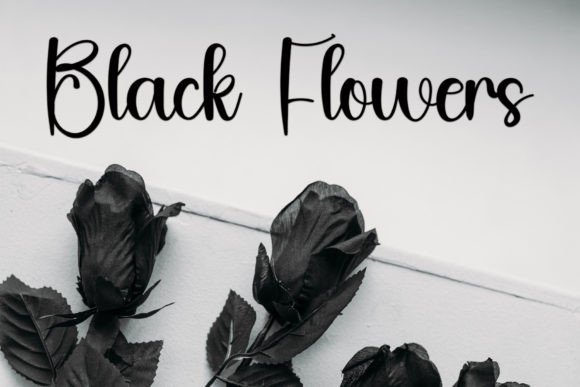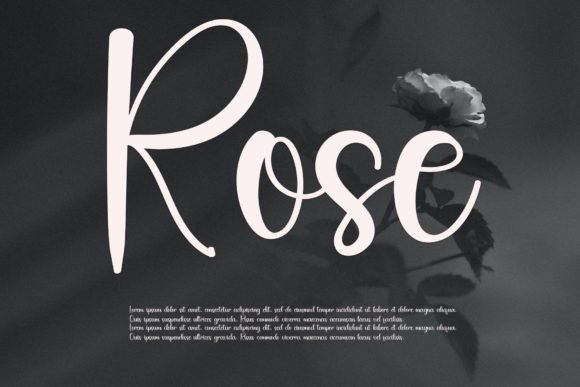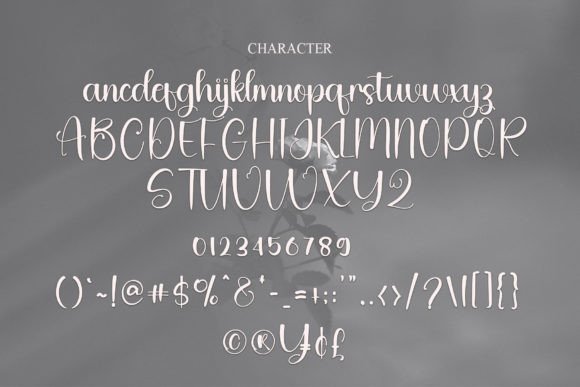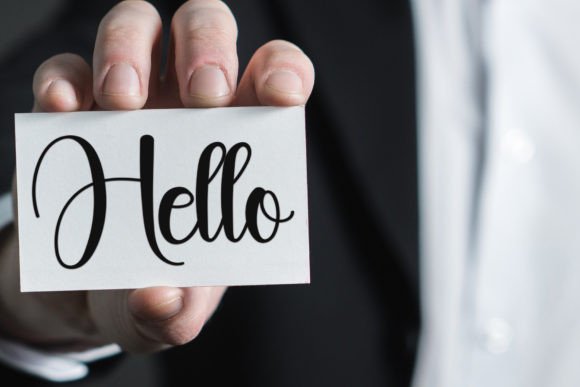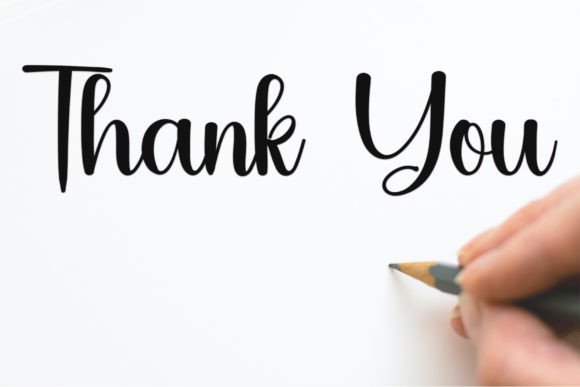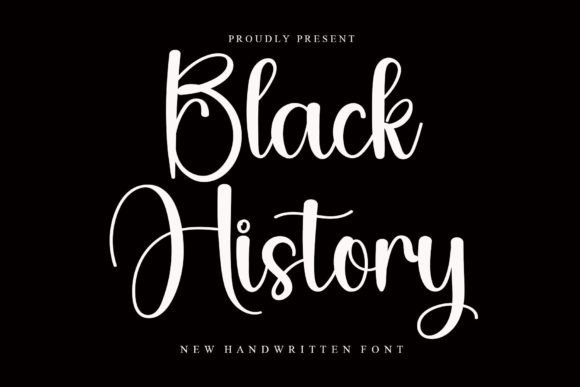
Discover the Charm of Black History Font: Elevate Your Designs with a Touch of Elegance
Are you a designer or crafter looking for a unique and captivating font to add a romantic feel to your projects? Look no further than the Black History Font, an enchanting handwritten typeface that is sure to leave a lasting impression. With its versatile and elegant design, this font is perfect for a wide range of applications, from greeting cards and headlines to branding and advertising.
The Story Behind Black History Font
Black History Font is a carefully crafted typeface that draws inspiration from the rich cultural heritage of black history. The font’s creator aimed to design a font that not only celebrates the achievements and contributions of African Americans but also adds a touch of sophistication and elegance to any design project. The result is a beautiful, handwritten font that exudes warmth, personality, and style.
Key Features of Black History Font
- Handwritten style: Black History Font boasts a charming handwritten style that adds a personal touch to any design project.
- Versatile: This font is suitable for a wide range of applications, from formal and informal designs to digital and print projects.
- Elegant and refined: The font’s elegant design makes it perfect for creating sophisticated and eye-catching headlines, titles, and text.
- Easy to read: Despite its ornate style, Black History Font is easy to read, making it ideal for body text and longer passages.
Uses of Black History Font
Black History Font is an incredibly versatile typeface that can be used in a variety of design projects, including:
- Greeting cards: Add a personal touch to your greeting cards with the elegant and refined design of Black History Font.
- Headlines and titles: Use Black History Font to create eye-catching headlines and titles that grab attention and leave a lasting impression.
- Branding and advertising: This font is perfect for creating brand identities, logos, and advertising materials that require a touch of elegance and sophistication.
- Digital and print projects: Black History Font can be used in a range of digital and print projects, from social media graphics to brochures and flyers.
Tips for Using Black History Font
To get the most out of Black History Font, here are some tips to keep in mind:
- Pair with complementary fonts: Combine Black History Font with complementary fonts to create a visually appealing contrast.
- Use for headlines and titles: Take advantage of the font’s elegant design by using it for headlines and titles.
- Experiment with colors and textures: Add depth and interest to your designs by experimenting with different colors and textures.
Black History Font is a beautiful and versatile typeface that is sure to add a romantic feel to your design projects. With its elegant handwritten style, versatility, and ease of use, this font is perfect for designers and crafters looking to create sophisticated and eye-catching designs. Whether you’re working on a greeting card, headline, or branding project, Black History Font is an excellent choice.